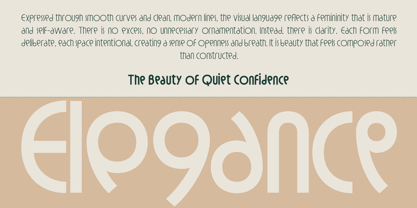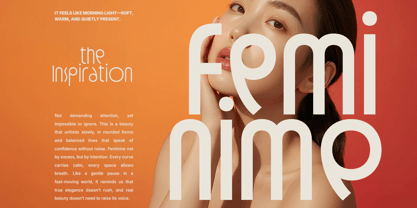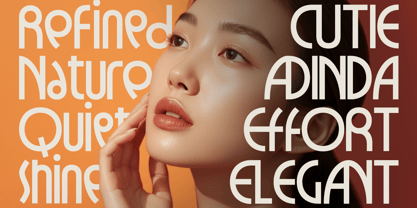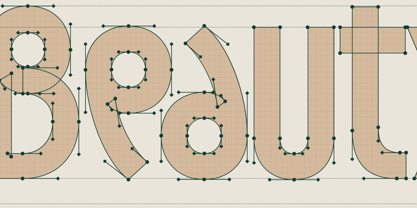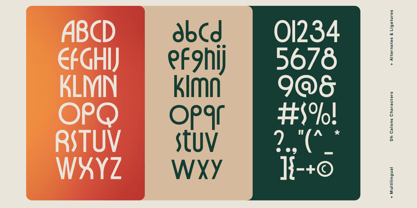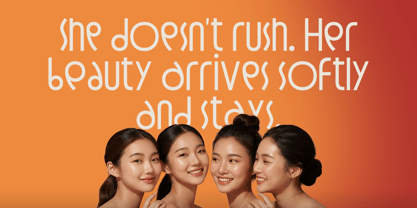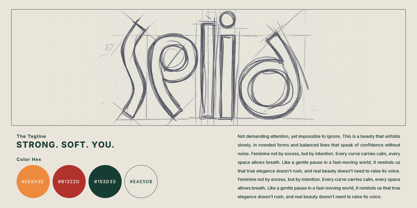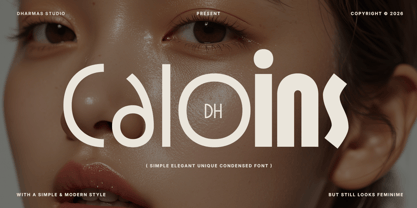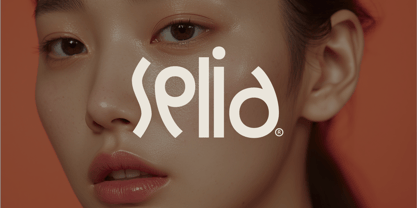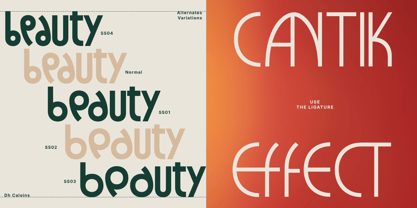
Dh Caloins is an elegant modern typeface family designed to bring a refined, graceful, and sophisticated touch to your typography. With its smooth curves and distinctive letterforms, this font creates a stylish and expressive look that works beautifully for beauty brands, fashion designs, editorial layouts, and premium branding projects.
This type family comes with 8 styles: Thin, Extra Light, Light, Regular, Medium, Semi Bold, Bold, and Extra Bold, making it highly versatile for both headlines and supporting text. Dh Caloins also includes 55+ alternates and ligatures, variable font support, and a Type Specimen PDF, giving you flexibility to explore different typographic styles and creative compositions.
Perfect for beauty branding, cosmetics packaging, fashion logos, editorial titles, magazine layouts, luxury branding, social media designs, and modern advertising.
Dh Caloins Font Features:
• 8 Weights: Thin, Extra Light, Light, Regular, Medium, Semi Bold, Bold, Extra Bold
• Dh Caloins Specimen Font
• 55+ Alternates and Ligatures
• Letters, numbers, symbols, punctuation, special alternates
Dh Caloins